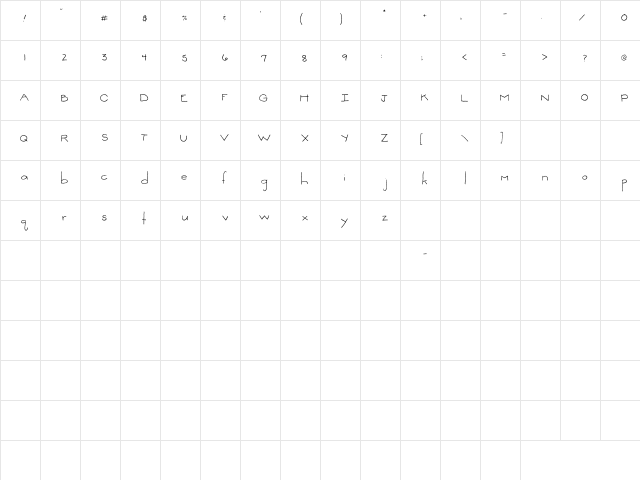
2Peas Think Small 2Peas Think Small
| Foundry | Two Peas in a Bucket |
| Designer | designed by Melissa Baxter |
Design Context for 2Peas Think Small Typeface
2Peas Think Small is a composed and adaptable typeface that performs quietly and consistently across a wide range of design contexts. Its slender proportions lend an understated elegance to any composition.